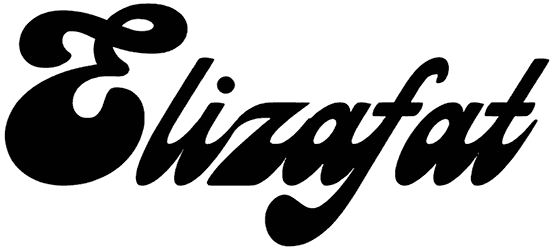
Oaklash Font
Oaklash is a groovy font in that all its characters are very large and have high readability. The edges of the letters of this font are stretched, thus conveying a sense of classic, variety, and empathy. This font can be used to design street posters, logos, business cards, and stickers.
Designed by: StringLabs